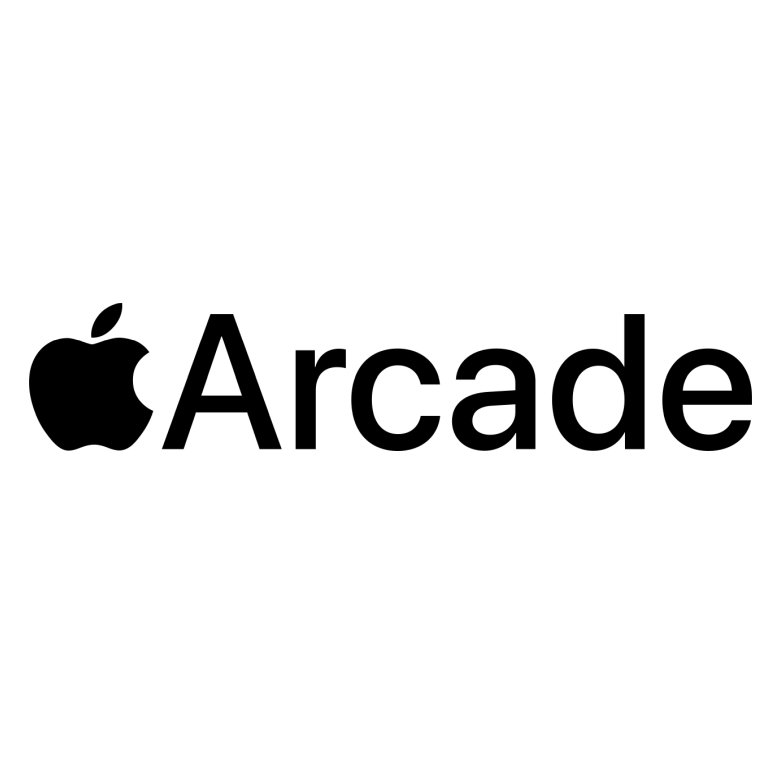
Apple Arcade Font
Fonts in UseApple Arcade is a subscription-based video game service by Apple that offers exclusive games for iOS, macOS, and tvOS devices without ads or in-app purchases. It was launched in September 2019.
Apple's proprietary font San Francisco, which belongs to the neo-grotesque sans-serif typeface family, is utilized for the wordmark. San Francisco was initially introduced on November 18, 2014, and is available only to registered Apple developers for use solely in Apple operating systems.